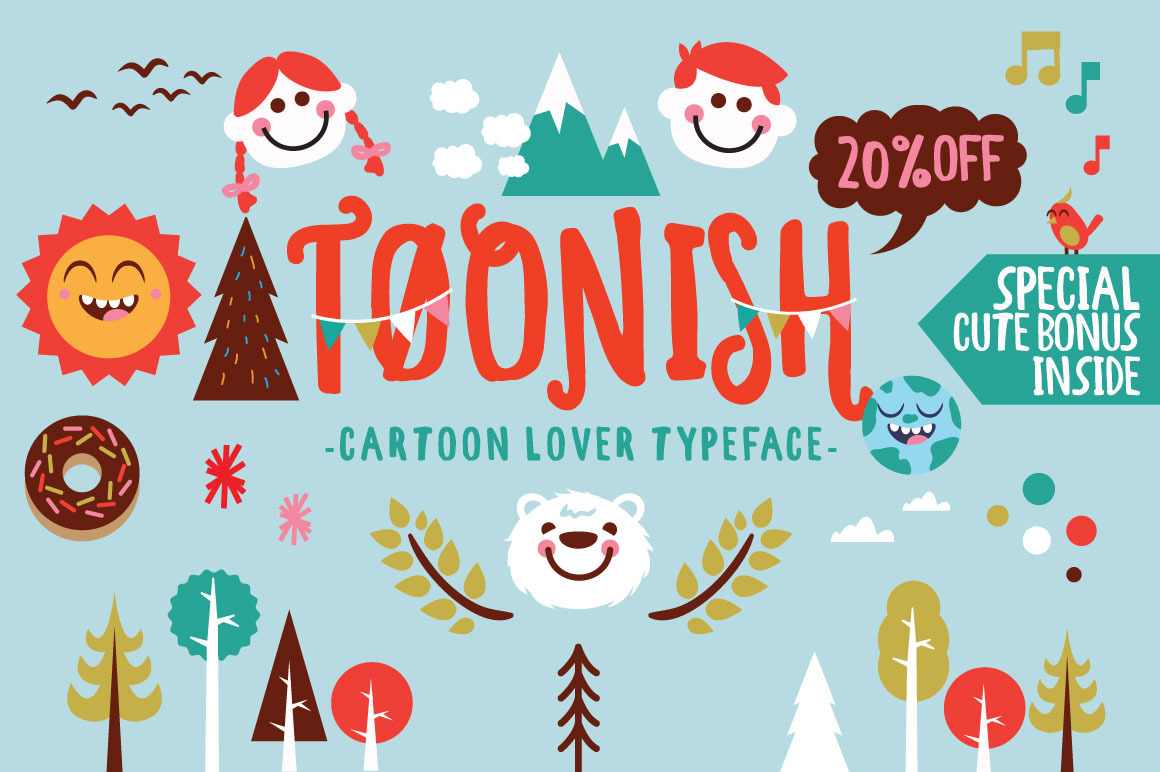
Toonish Typeface + Bonus (20%off)
♩ ♪ It’s a hey-hey-hello... yelloowww... dabidubidubiduuu... hello you... ♫ yes you... ♪ the TOONISH is here!!! Tralalalala... ♩♫
The sweetest introduction for this is of course must be in Jingle! Why? Coz it’s essential, it’s fun, and playful. Your smile, everyone’s smile are what inspired the toonish to existence. Toonish Typeface is a unique and fun font, Inspired by the kids cartoon, it will brings back childhood to you life.
You can use Toonish Typeface in any settings; kids event merchandises, children’s books, tee design, titling on movie, poster, cd cover for kid's song album, sign for the kid's area,etc ...the space is your limit.
The Toonish loves to be added into your design, wherever you wanna spill more hearty elements. Just look at the colors: joyously warm. So, grab the happiness right away!